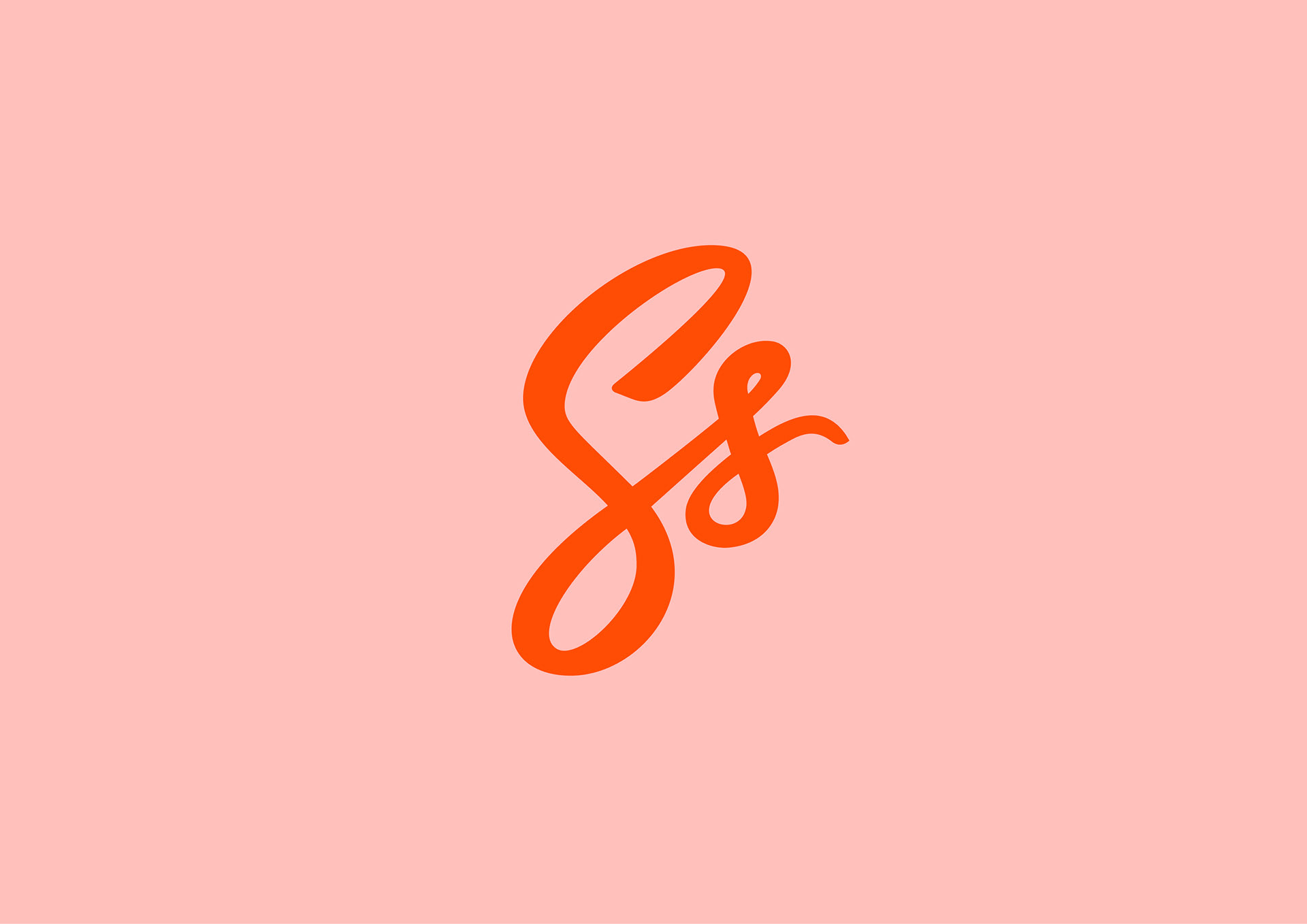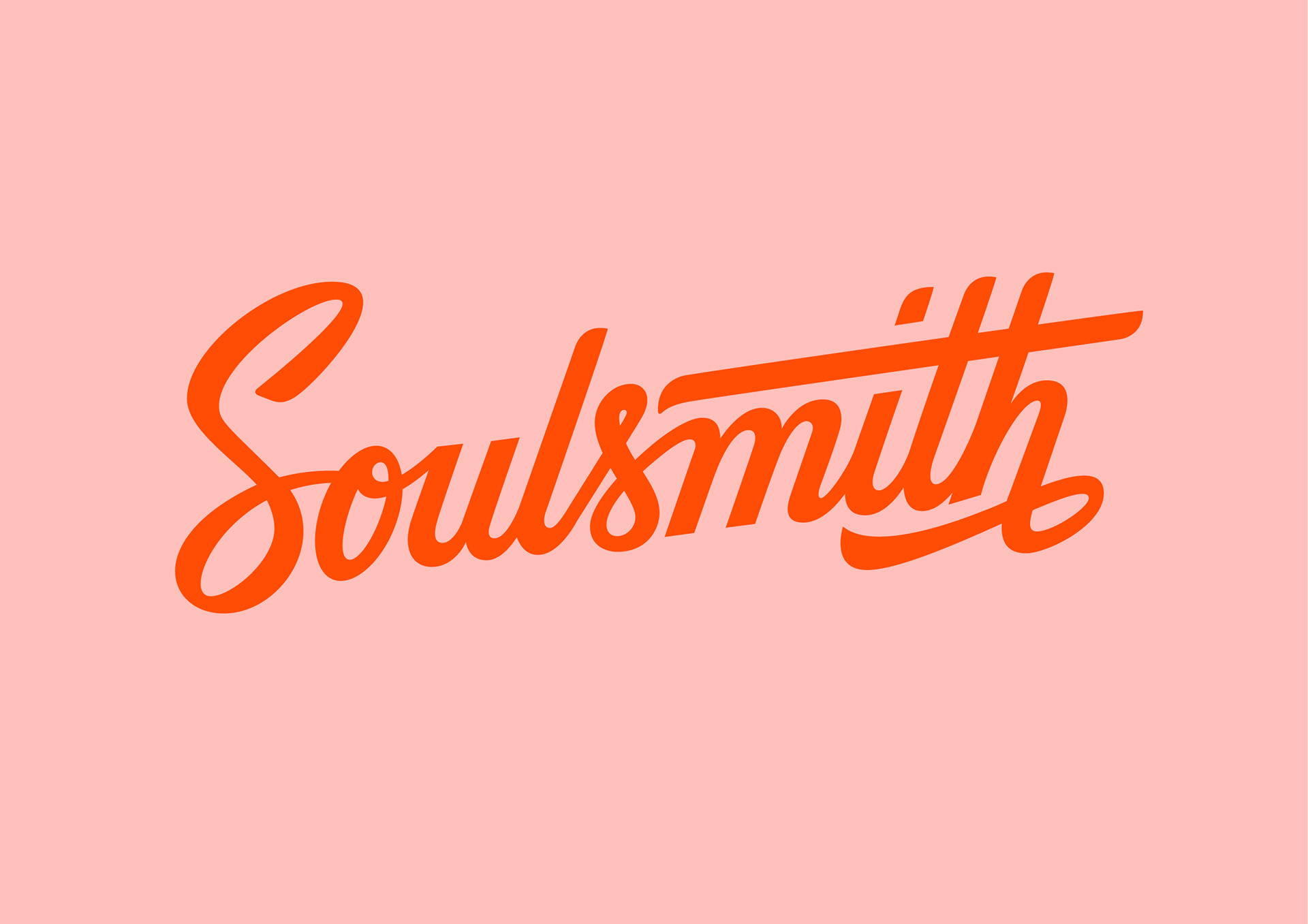
This bespoke jewellery shop commissioned a new logo ident, they wanted some bespoke script lettering that was fun and friendly yet professional and that would differentiate them from the rest of the jewellery market.​​​​​​​
I also produced a monogram they could use on social media, which they decided to make into a hallmark to stamp into each piece of jewellery.